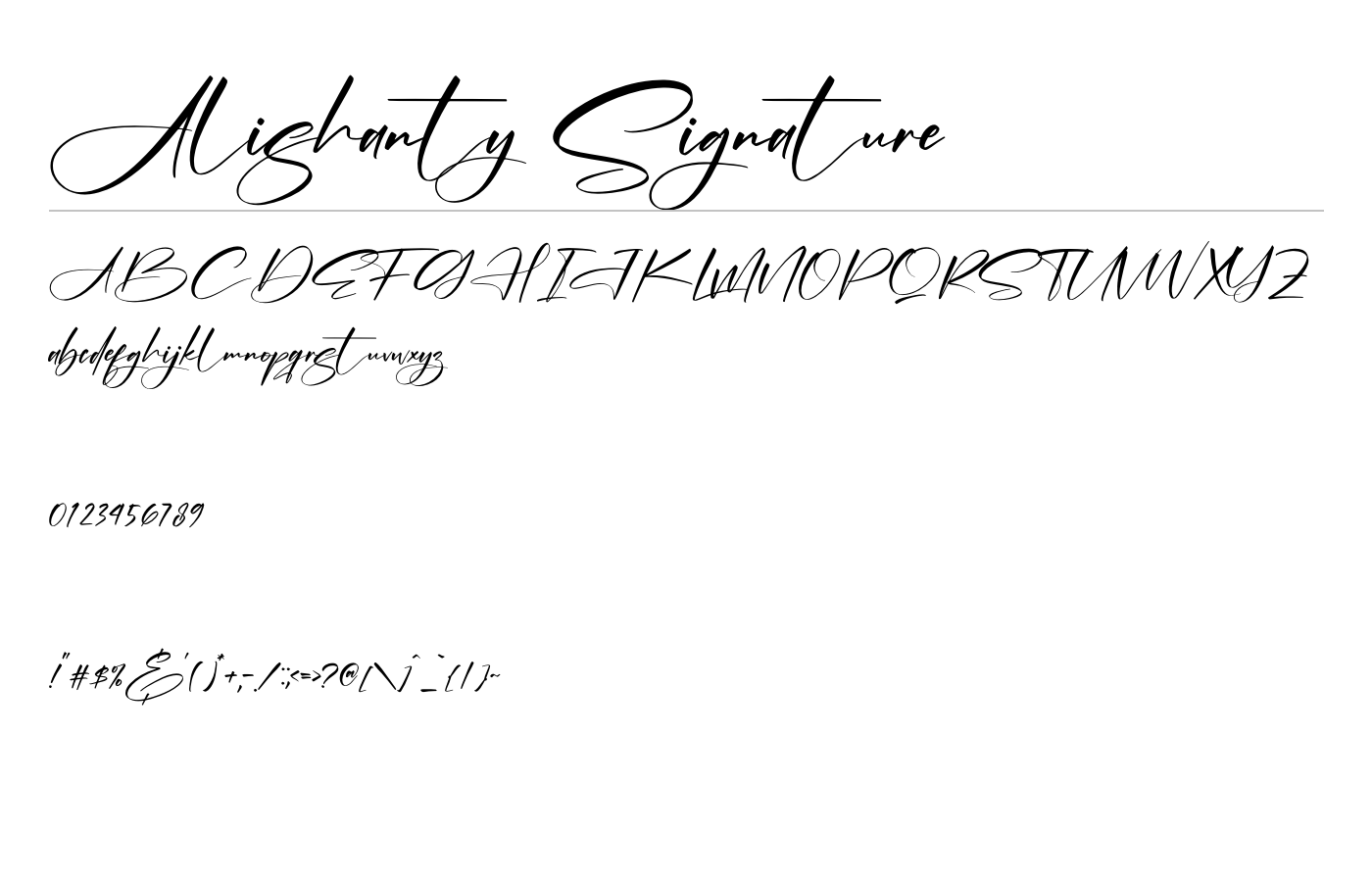
Alishanty Signature Font is an elegant and flowing script font that mimics a natural, stylish handwritten signature with graceful, thin strokes and delicate loops. Its slender, high-contrast letterforms convey a chic, modern sophistication, making it perfect for luxury branding, wedding invitations, and artistic logos that require a personal, refined touch. This font works beautifully in headings and decorative text where an exclusive, fancy feel is desired.
Alishanty Signature Font
About Alishanty Signature Font